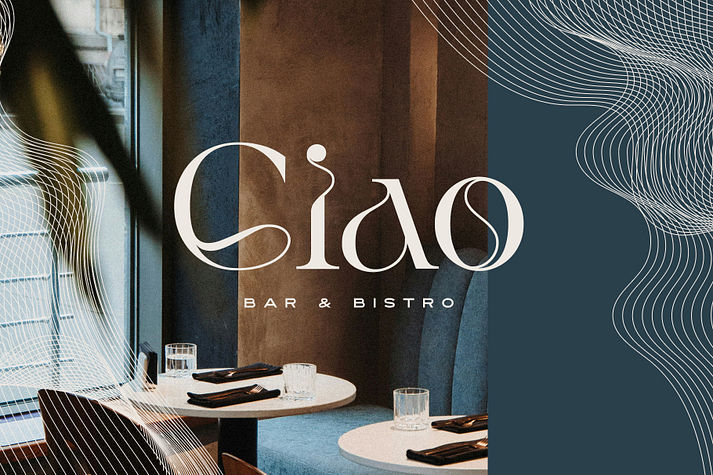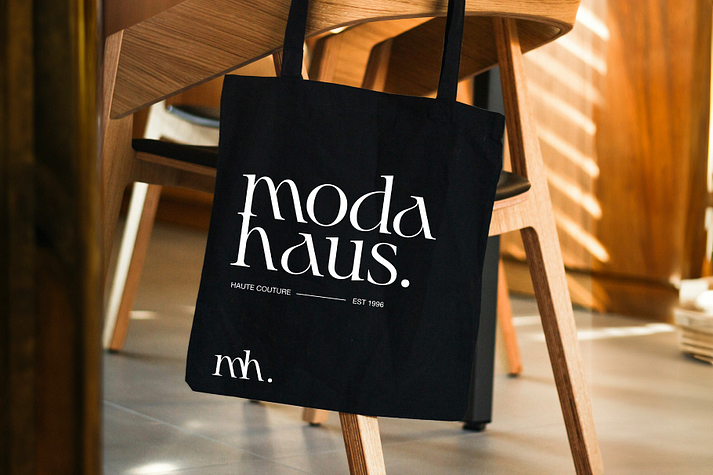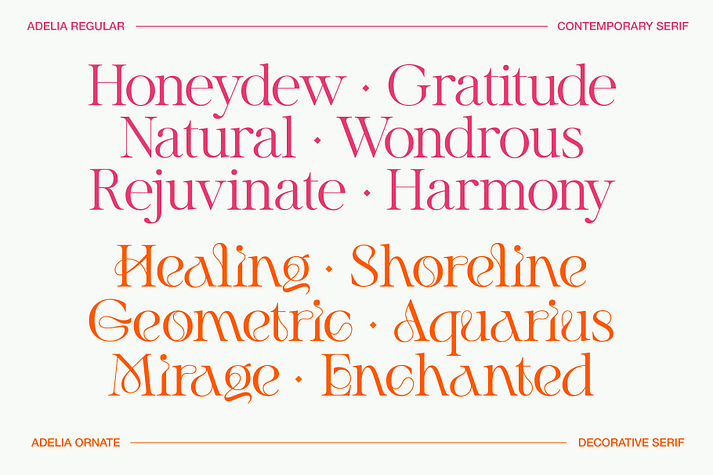
Adelia
Adelia is a serif font family. This typeface has two styles and was published by Set Sail Studios.
Introducing Adelia, a contemporary serif font that seamlessly blends elegance with versatility.  What sets Adelia apart from other serifs is its unique feature: a full set of alternate characters adorned with ornate swirls and flowing curves. The second ornate set of characters can be used as their own individual font, but can also be effortlessly integrated into the regular set of characters. This provides you with a number of word layout options and experimental possibilities—delivering stunning typography which works in both upper and lowercase sets. It’s a clean & classy option for modern logo & brand designs, product packaging, captivating display text, website headers, invitations & more.
1. Adelia Regular • A modern & highly versatile Serif font
2. Adelia Ornate • A decorative serif with flowing curves and unique forms, designed to pair effortlessly with the Regular set